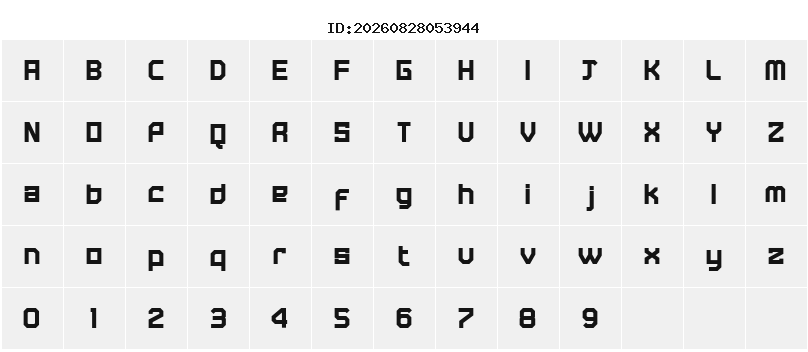
Tremble Preview
• Font Name: Tremble
About Tremble.ttf
Tremble.ttf is a modern, elegant sans-serif font designed for ultimate readability and visual harmony. Perfect for branding, headlines, web design, and print materials.